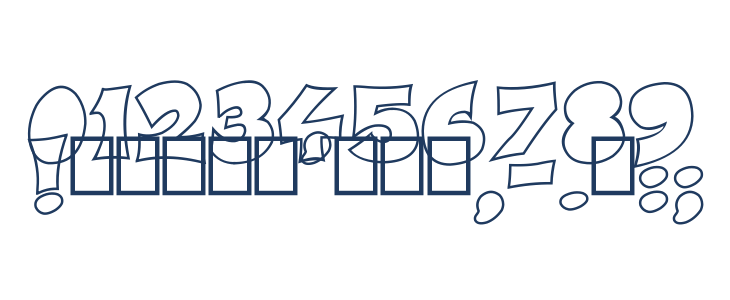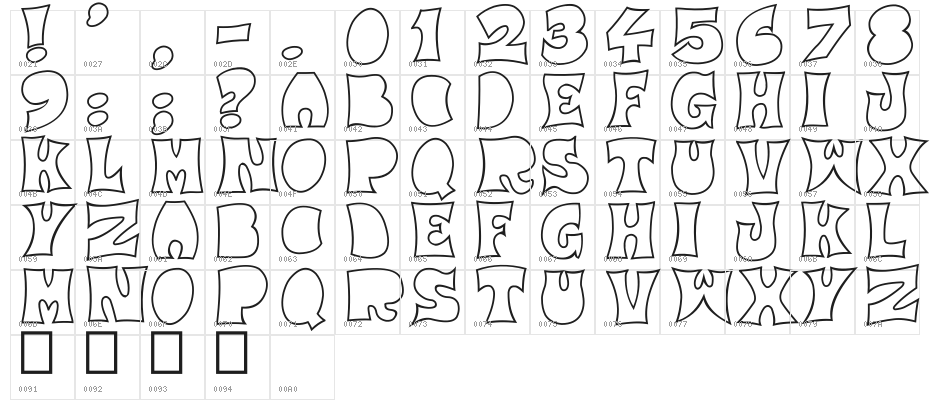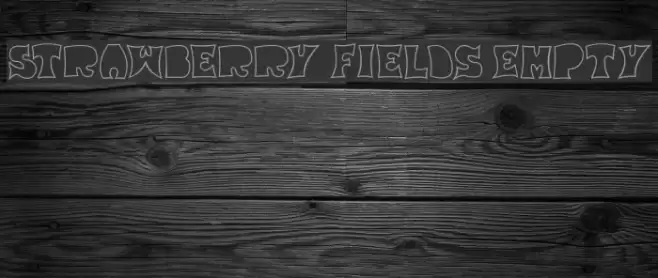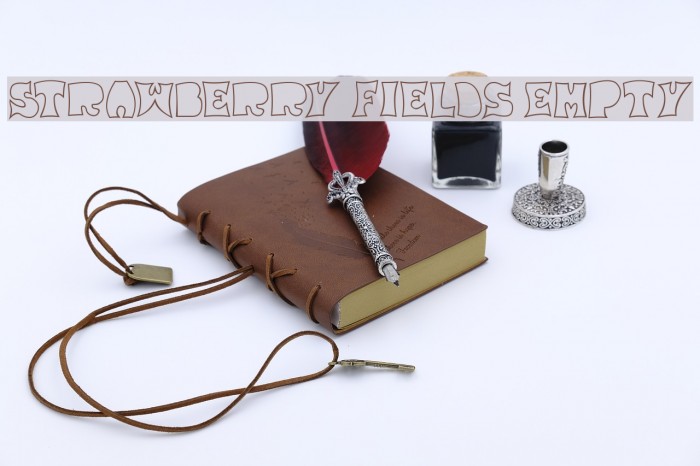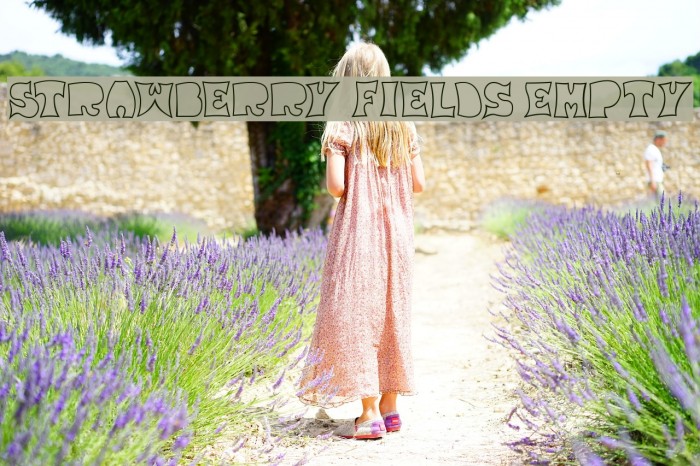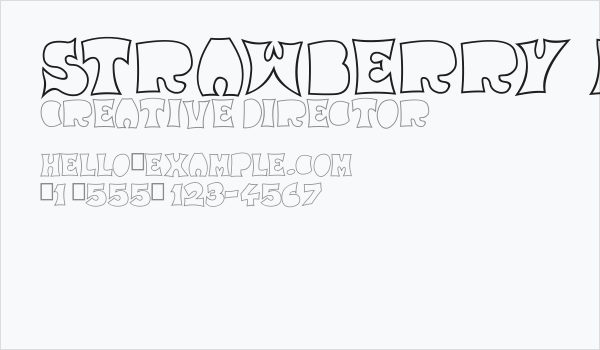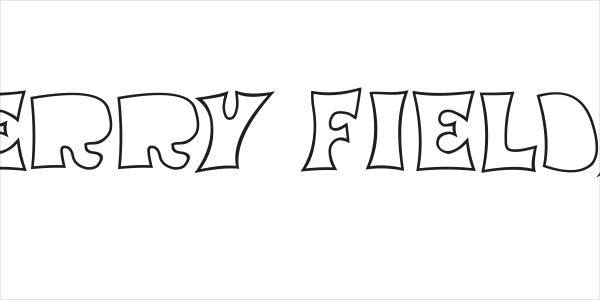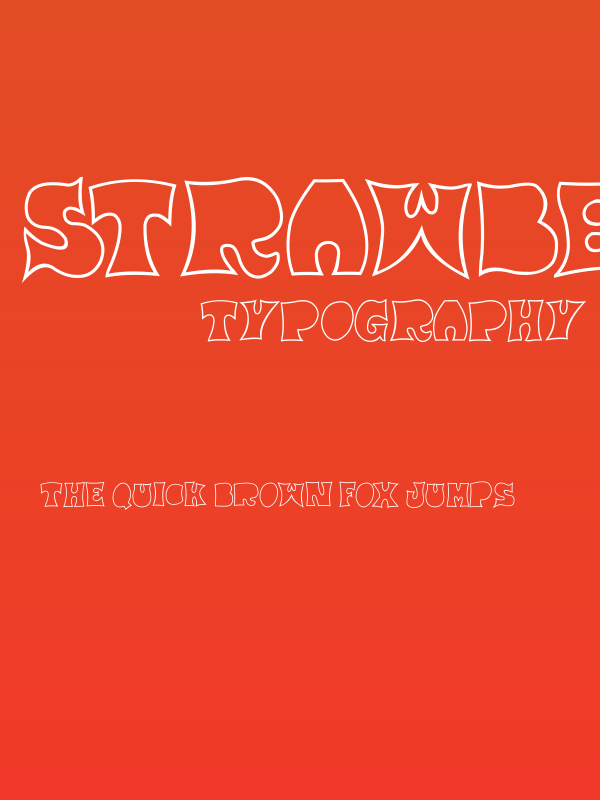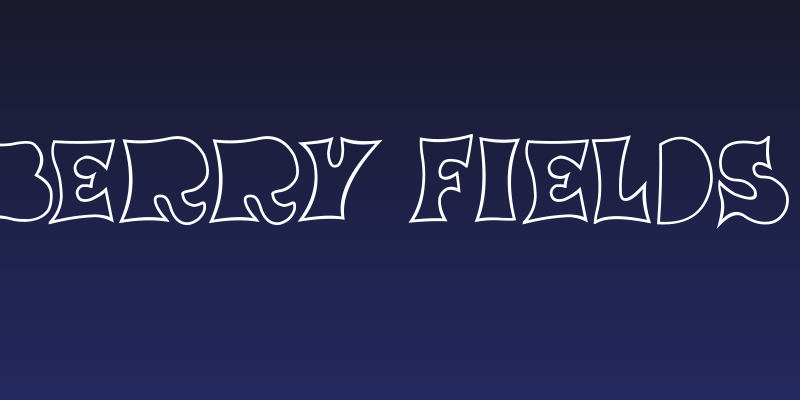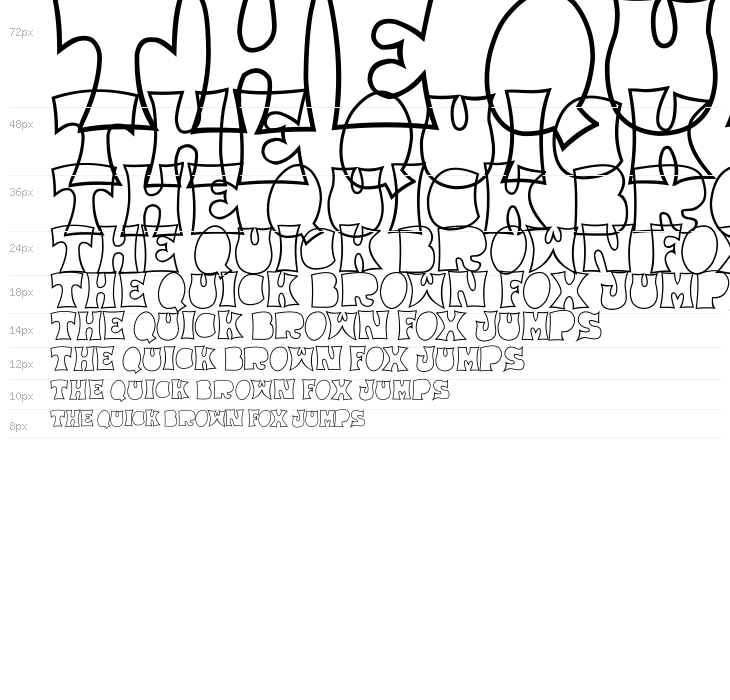
Strawberry Fields Empty Font
Strawberry Fields Empty Description
This font features a playful and whimsical design, characterized by its bold and exaggerated letterforms. Each character has a unique, hand-drawn appearance with uneven lines and a slightly distorted shape, giving it a lively and energetic feel. The uppercase letters are particularly striking, with their exaggerated curves and angles, while the lowercase letters maintain the same playful style. The numbers and special characters follow the same design principles, adding to the font's cohesive look. This font is perfect for projects that require a fun and informal touch.